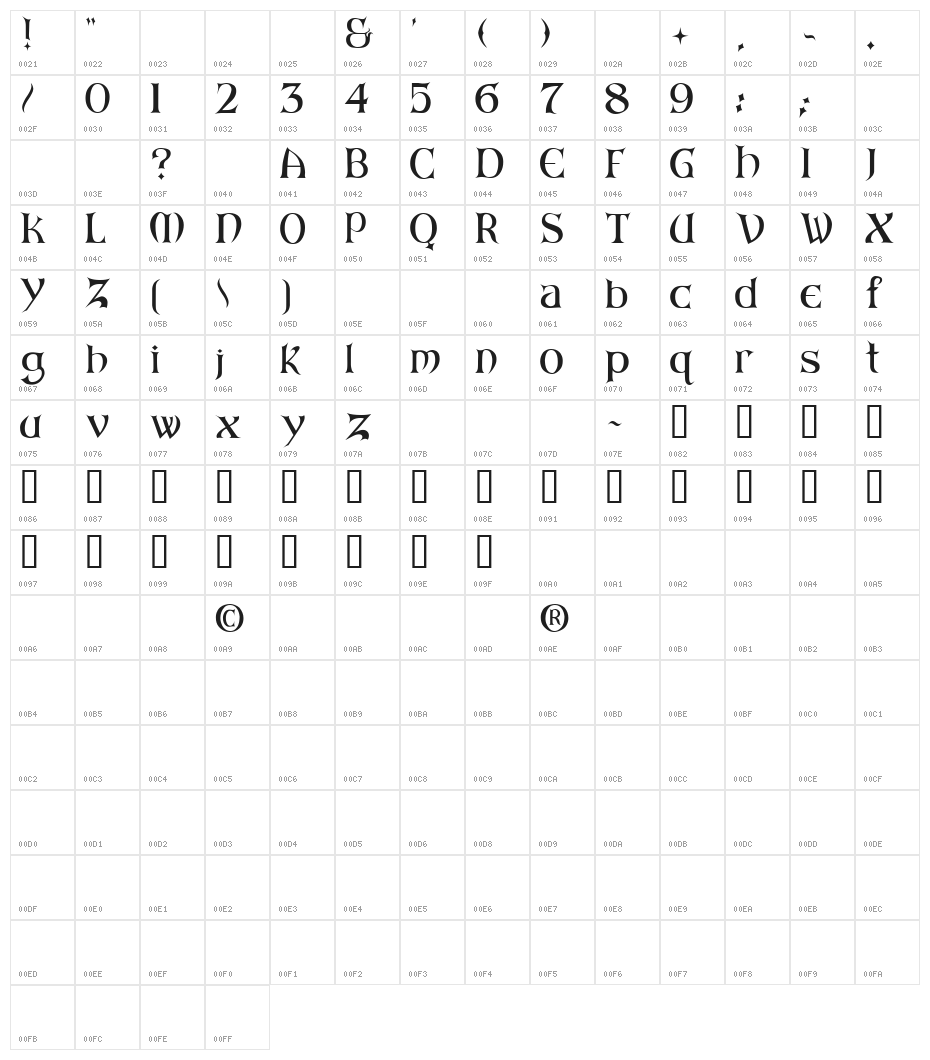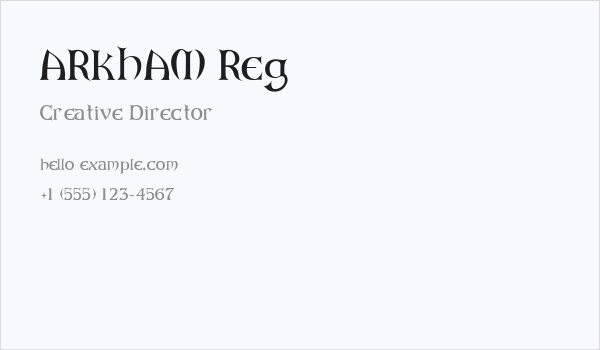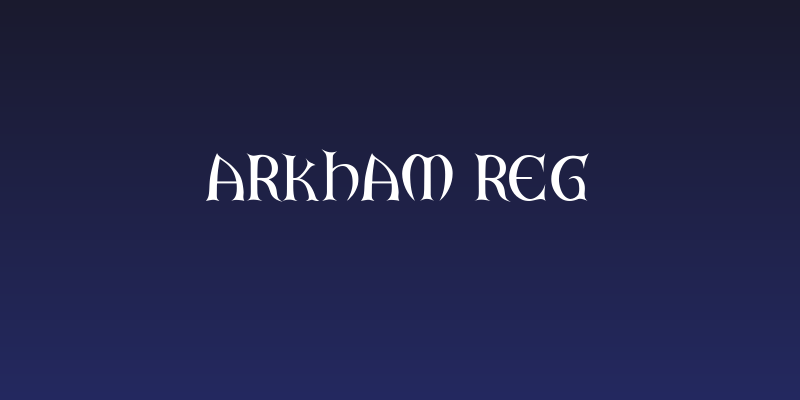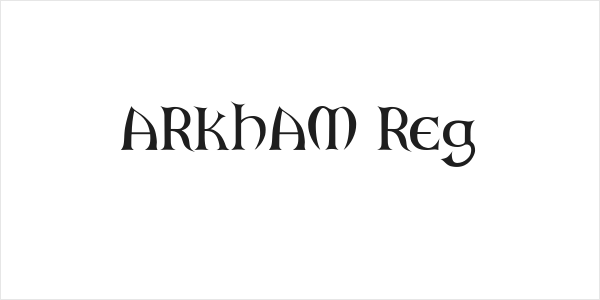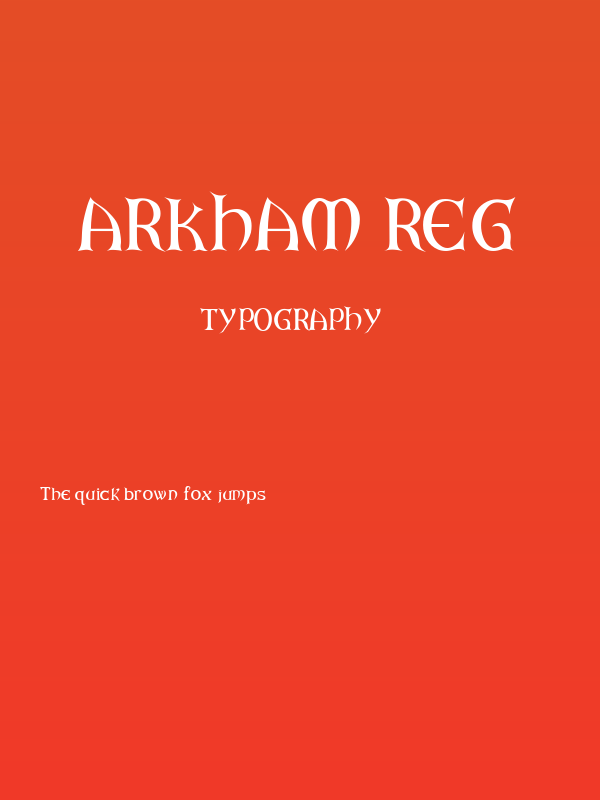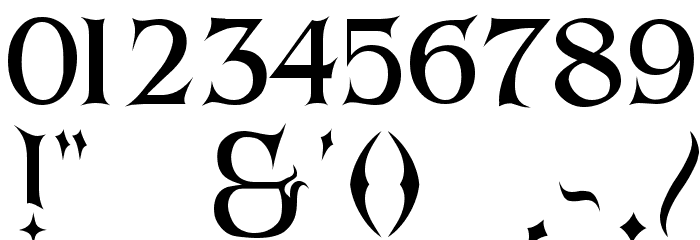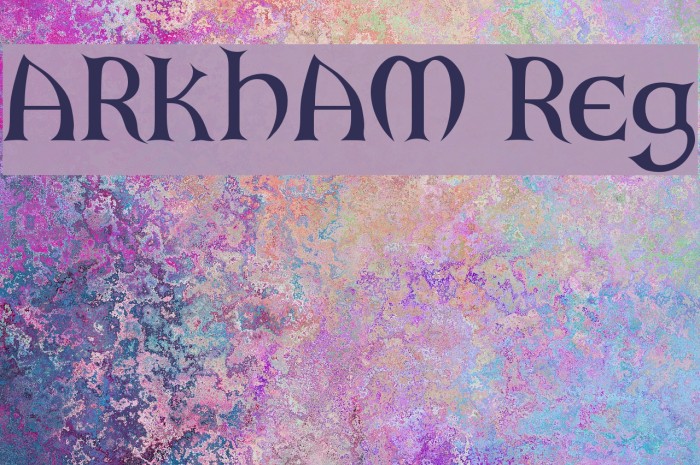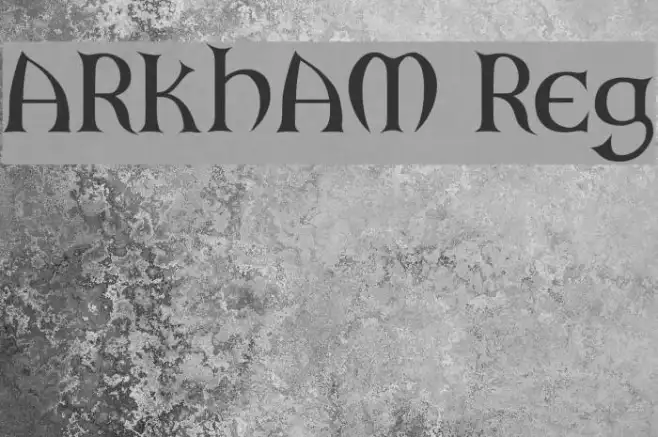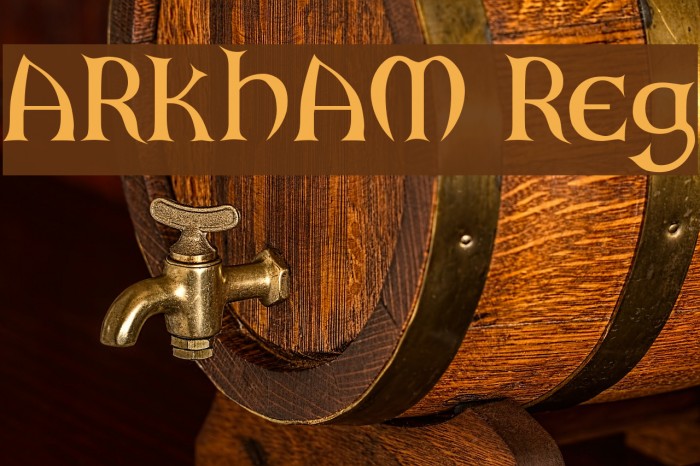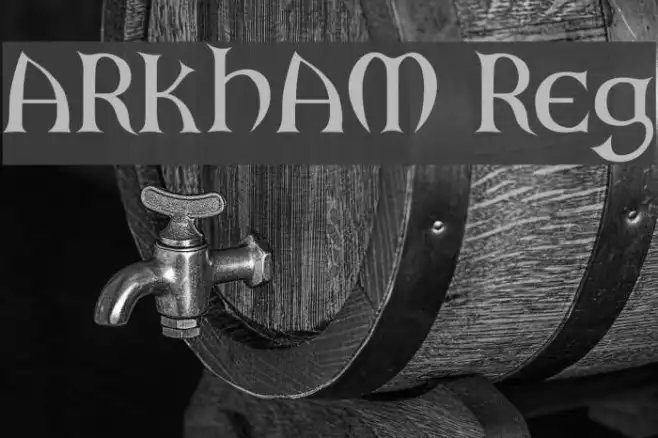
ARKHAM Reg Font
ARKHAM Reg Description
This font features a distinct, gothic-inspired style with sharp, angular serifs and a dramatic flair. The uppercase letters are bold and commanding, while the lowercase letters maintain a consistent style with slightly softer curves. The numerals are uniquely styled, echoing the gothic theme with pointed edges and a sense of mystery. Special characters are creatively designed, adding to the font's overall aesthetic. The font's intricate details and bold presence make it suitable for projects that require a touch of elegance and drama.
| Overall Style | Gothic, Dramatic |
| Use Case | Headlines, Logos, Decorative text |
| Proposed Projects | Ideal for use in fantasy book covers, movie posters, video game titles, and themed event invitations. |